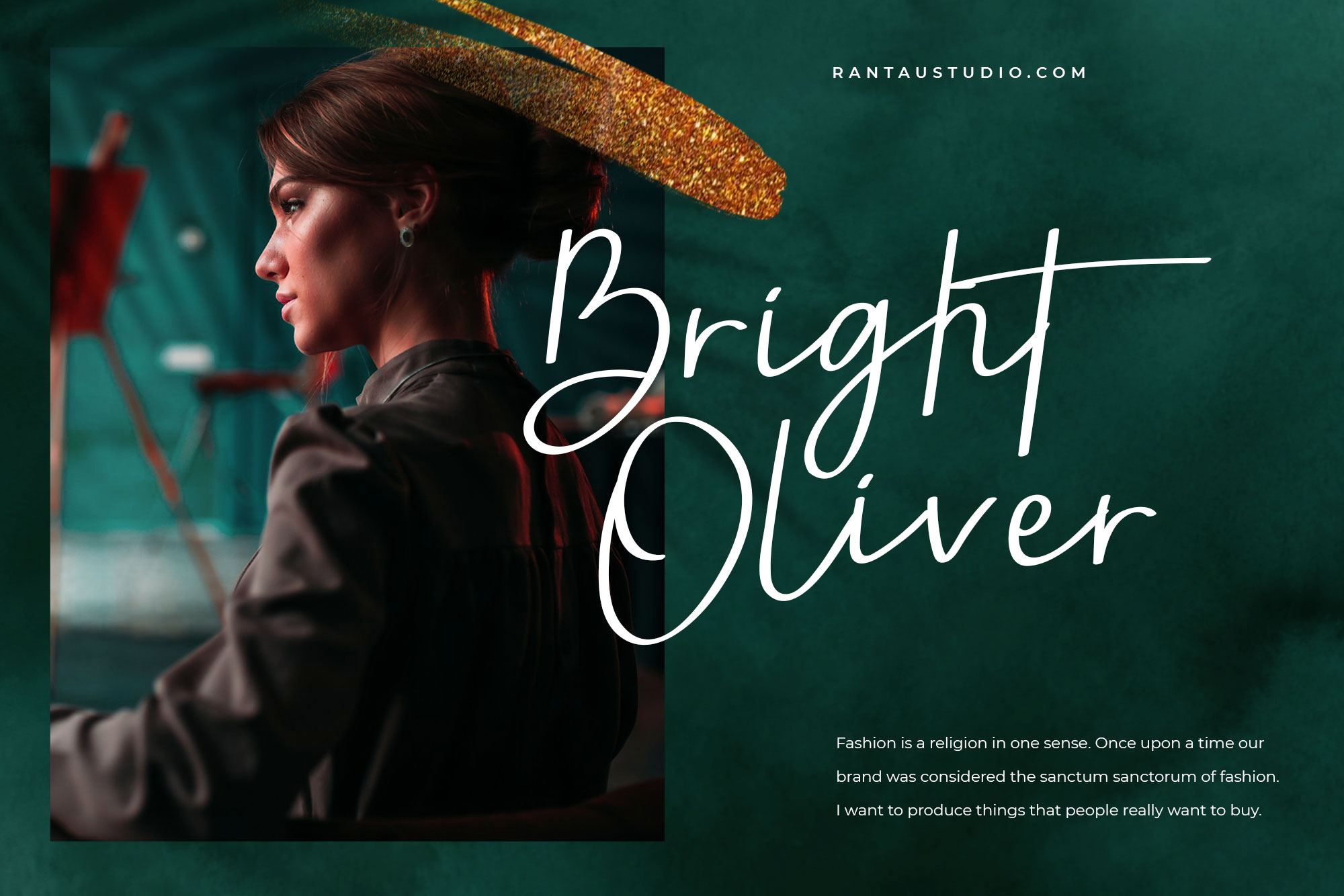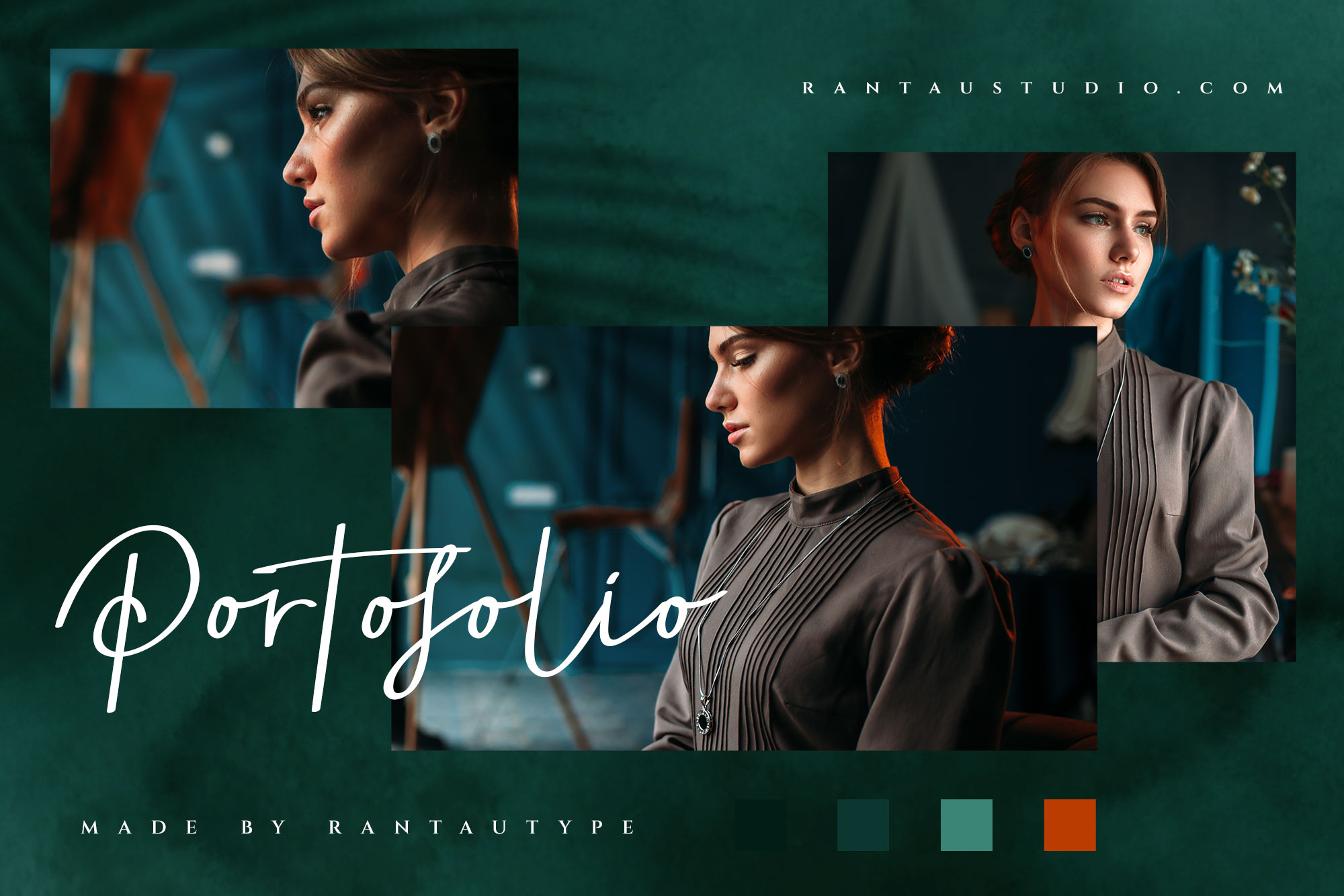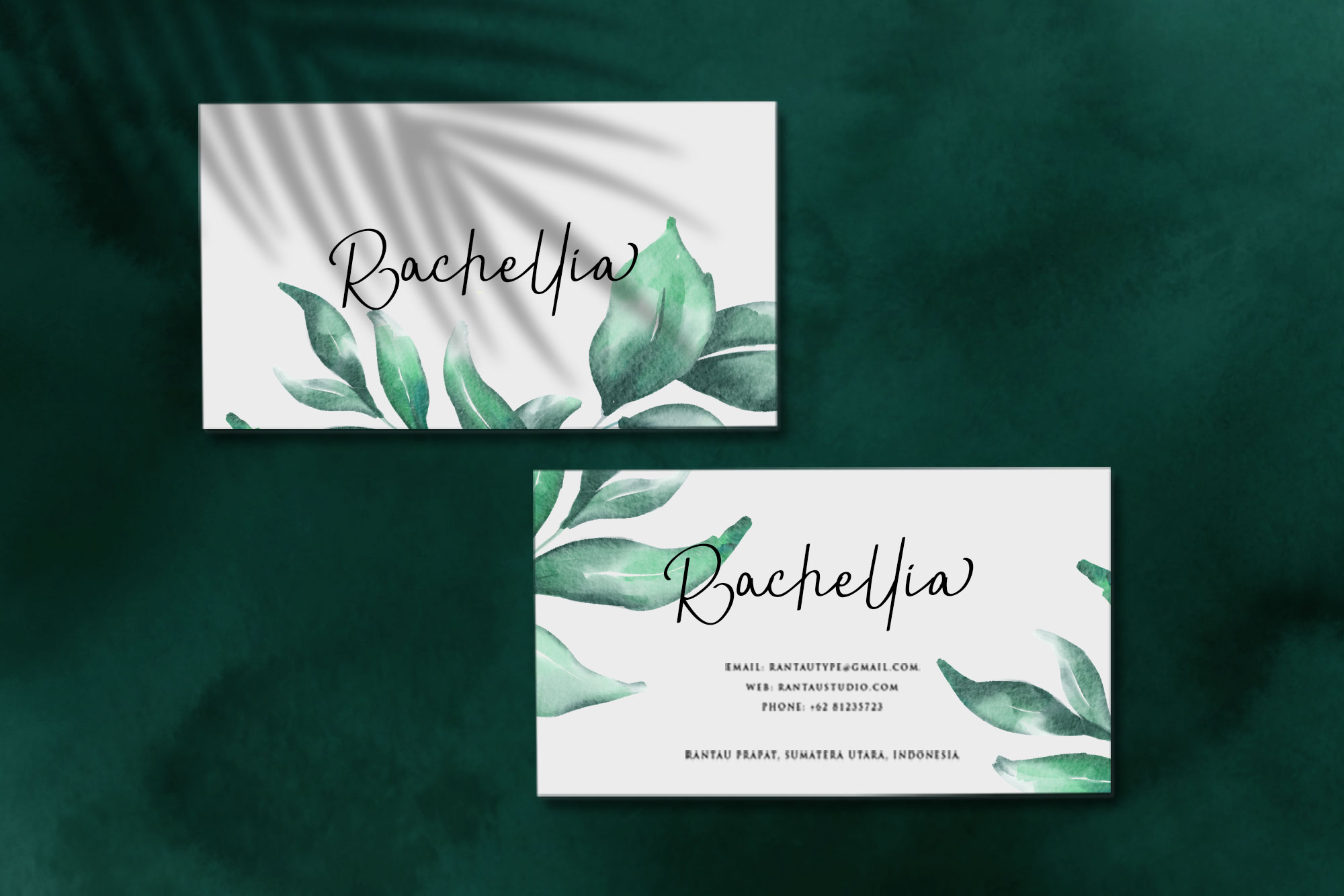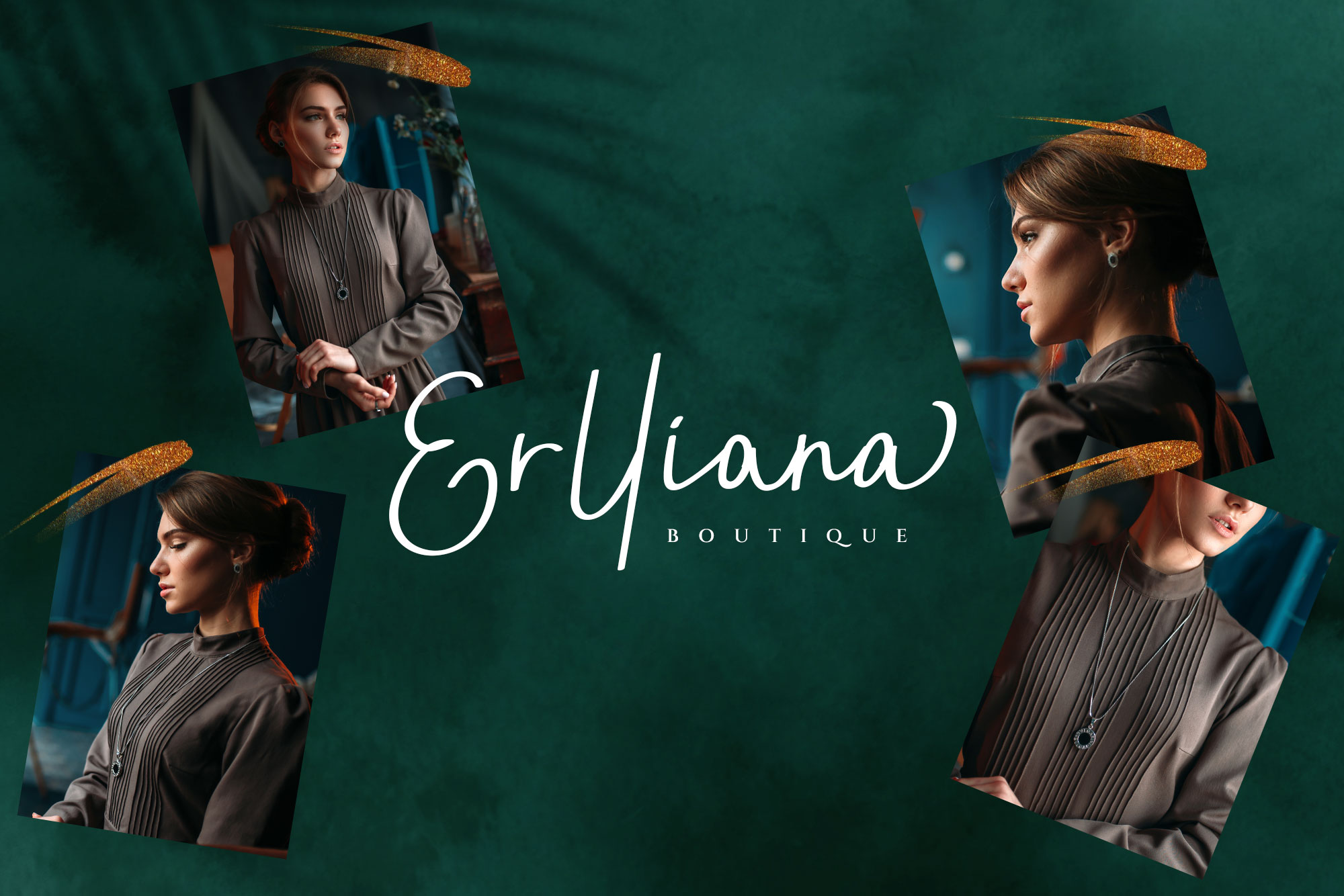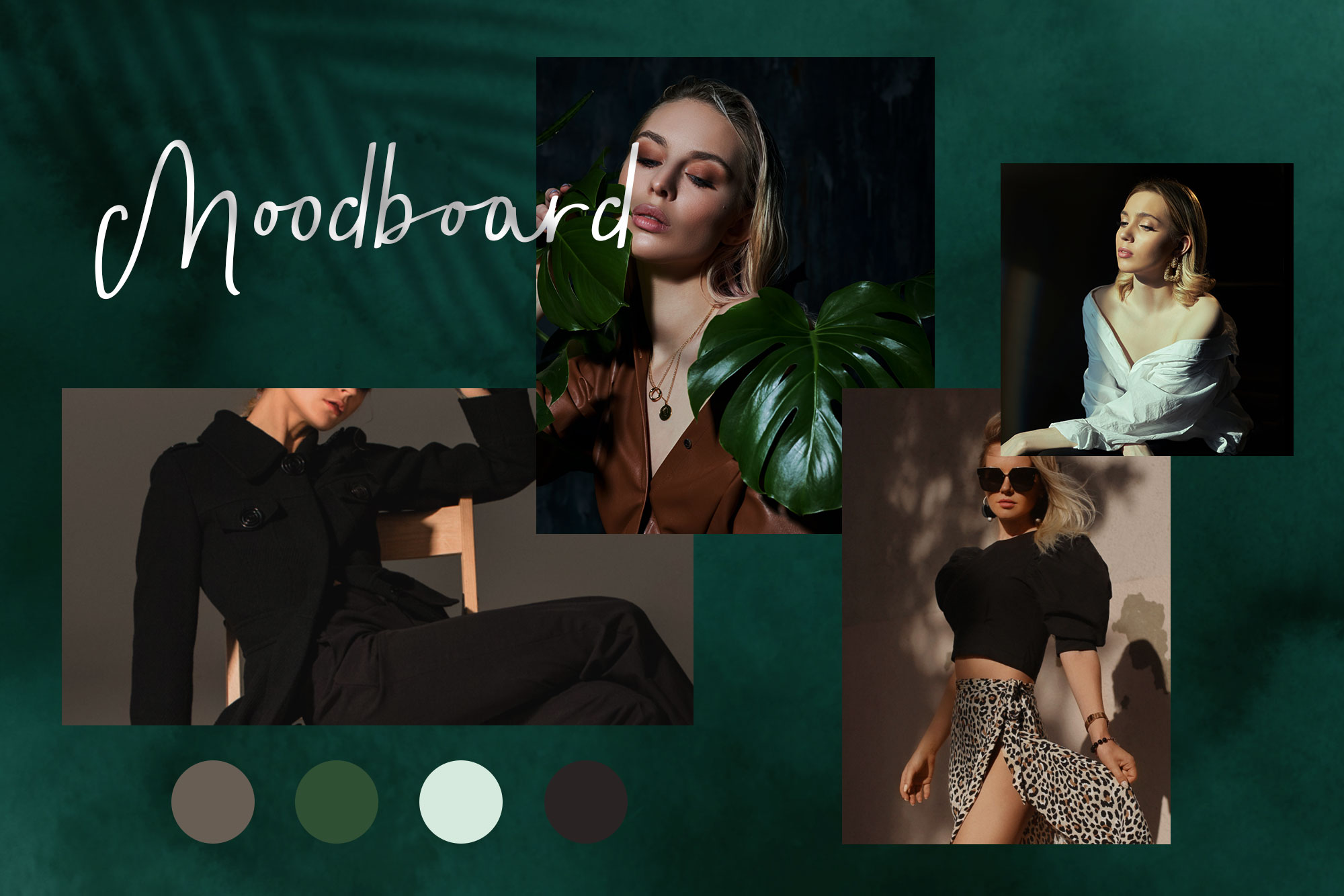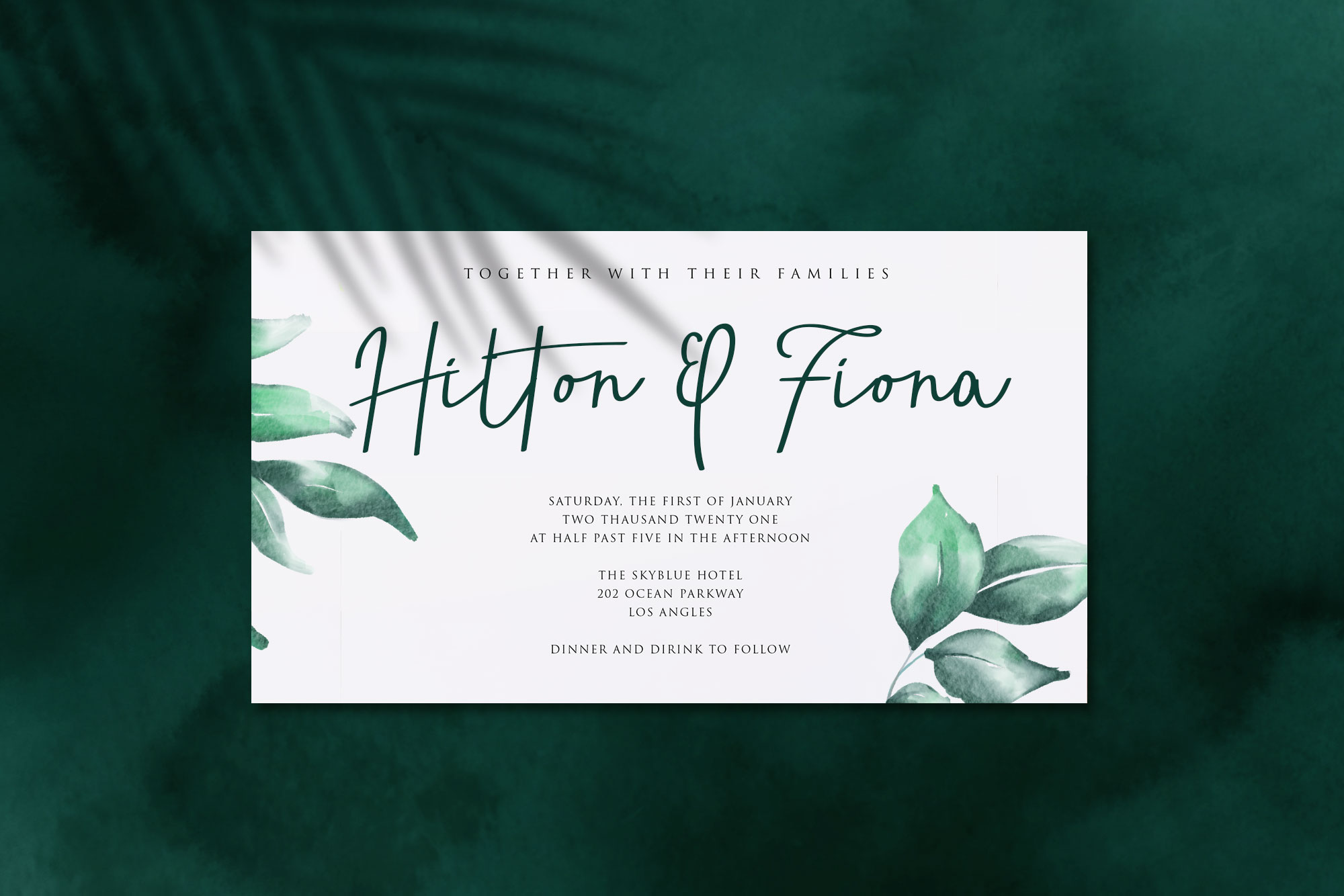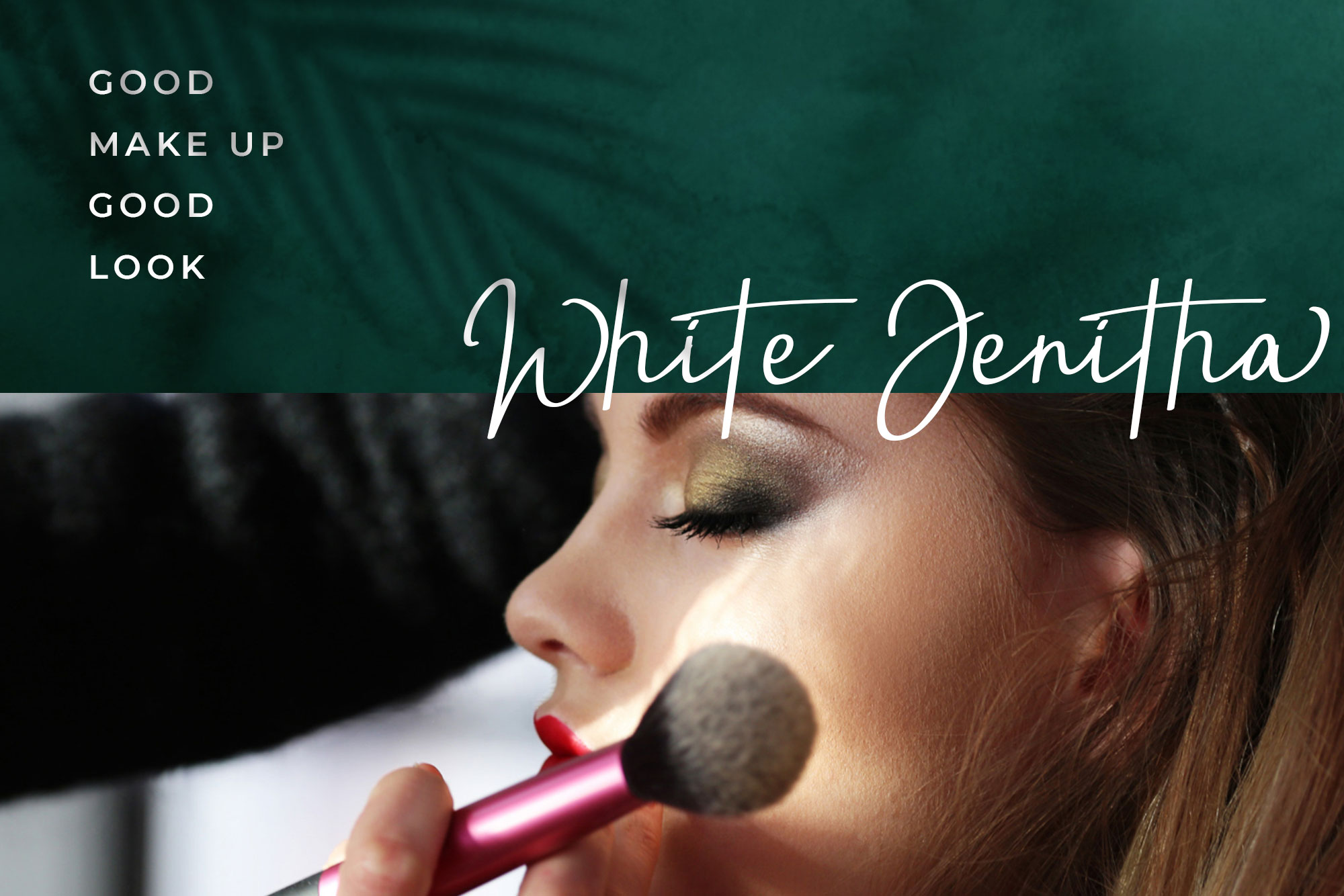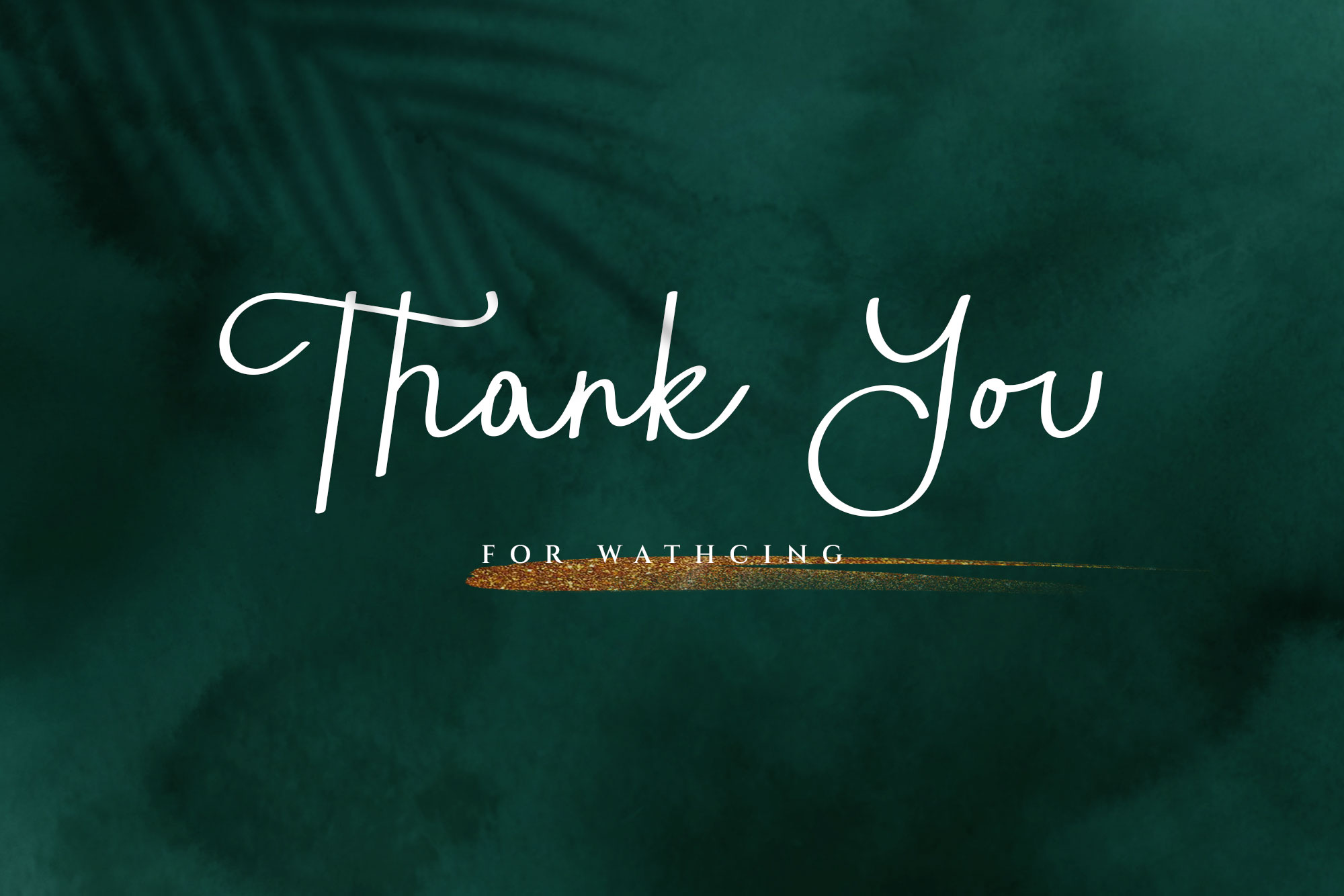
Astriany Handwritten font
Hi Ladies and Gentleman ! Proudly present Another lovingly font “Astriany” handwritten font his a I took this name from the Indonesian word “ASRI” which can be interpreted beautiful. we keep this font looks elegant, classy, readable, stylish, catchy and easy to use. Astriany is the great choice for watermark on photography, signature or signature logo design, quotes, album cover, business card and many other design project. Astriany is here to make your work to high level!!!
• Standart letter A-Z and a-z
• Ligatures and alternate